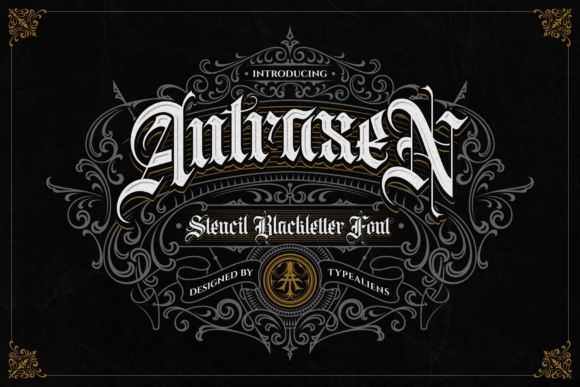
Introducing Antraxen Font, the perfect choice for those looking to add a touch of elegance and vintage flair to their designs. This Blackletter font family is sure to capture your attention with its unique blend of classic and gothic styles. Whether you're designing a logo, a label, or a tattoo, Antraxen has got you covered.
Created by Typealiens, this font is the go-to choice for brands that want to stand out with a classic and gothic style. With its stencil-like quality, Antraxen retains the original vintage feel while adding a touch of modernity to your designs. You can use this font to create a range of designs, from liquor brands to logos, and beyond.
But that's not all – Antraxen is also the best font for female tattoo designs. The font's unique and intricate design is perfect for creating beautiful and timeless tattoos. Whether you want to create a tattoo design for yourself or your clients, Antraxen is sure to leave a lasting impression.
In summary, Antraxen Font is the perfect choice for those who want to add a touch of elegance and vintage flair to their designs. With its classic and gothic style, this font is suitable for a range of brands, logos, and label designs. And if you're looking for the best font for female tattoo designs, Antraxen is the way to go.